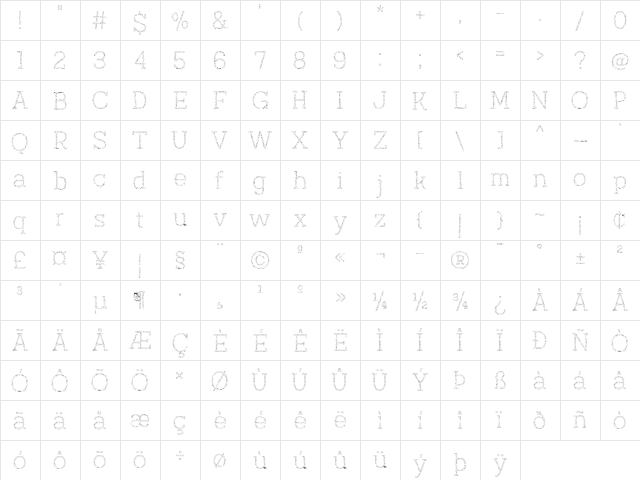
Austral Slab Maplines Light
Design Context for Austral Slab Typeface
Austral Slab features prominent, blocky serifs that give it a confident, grounded presence — equally at home in editorial settings and bold branding work. The delicate stroke weight brings airiness and refinement to layouts.
Suited to magazines, political campaign materials, bold packaging, and any setting where authority matters.
Pro Tip: Use Austral Slab for headlines and subheadings where its slab serifs can make an impression. It also holds up well in mid-size body copy thanks to its sturdy construction.